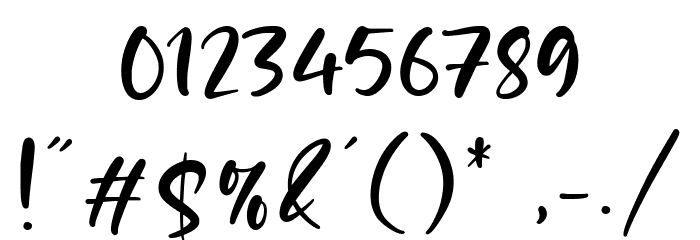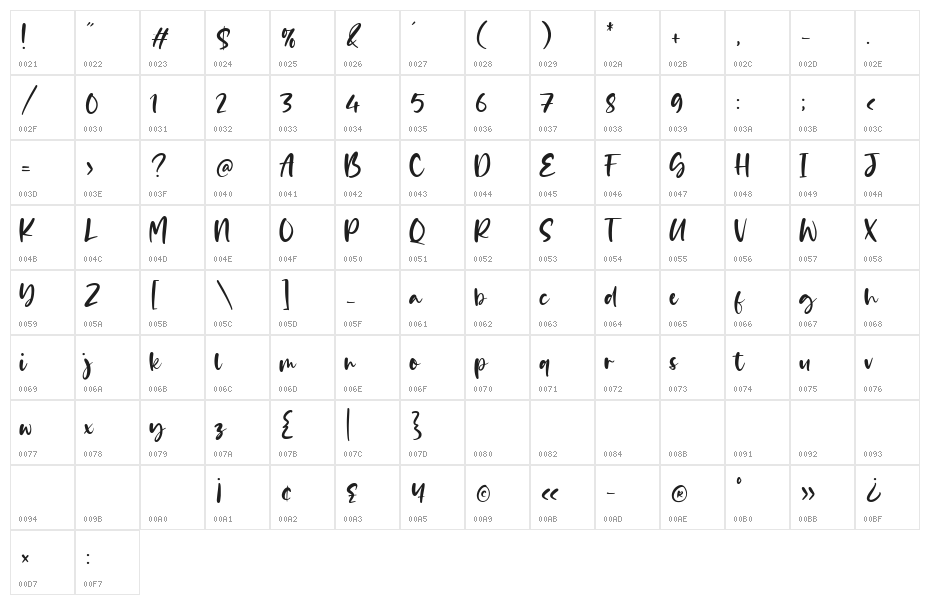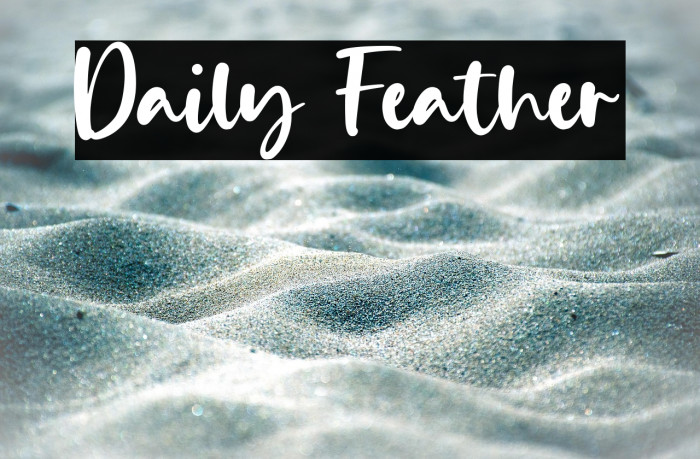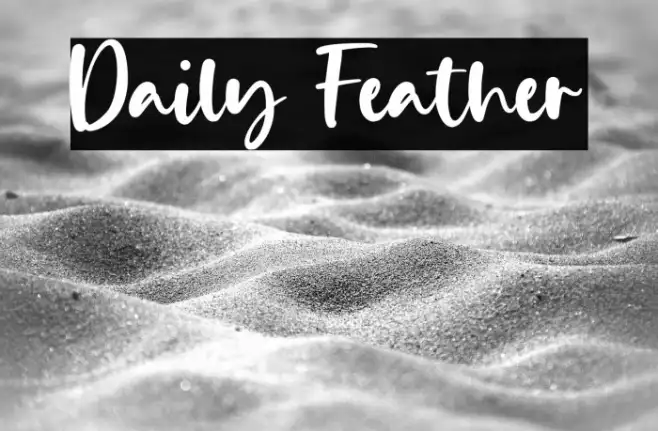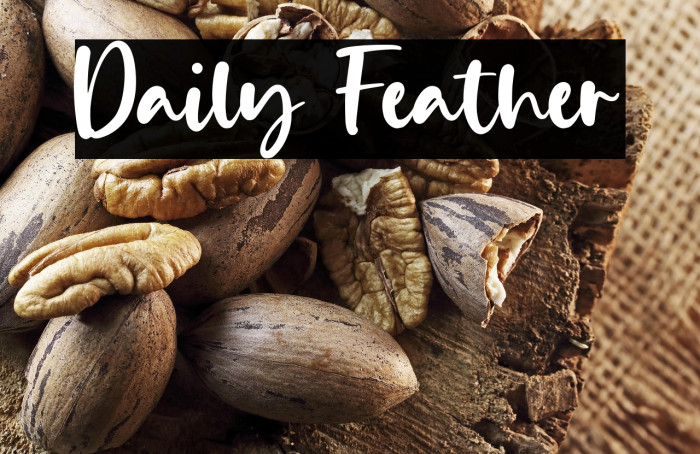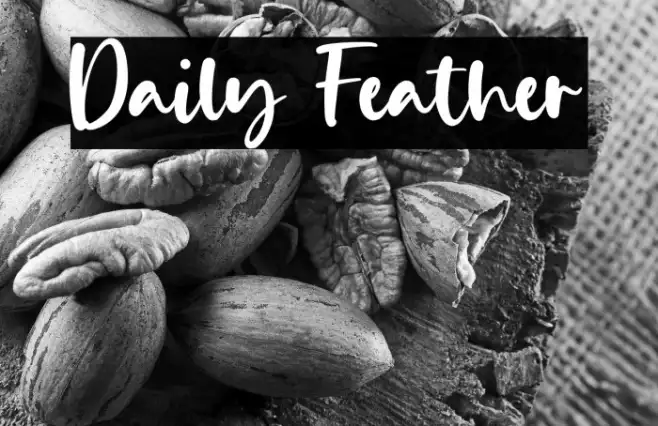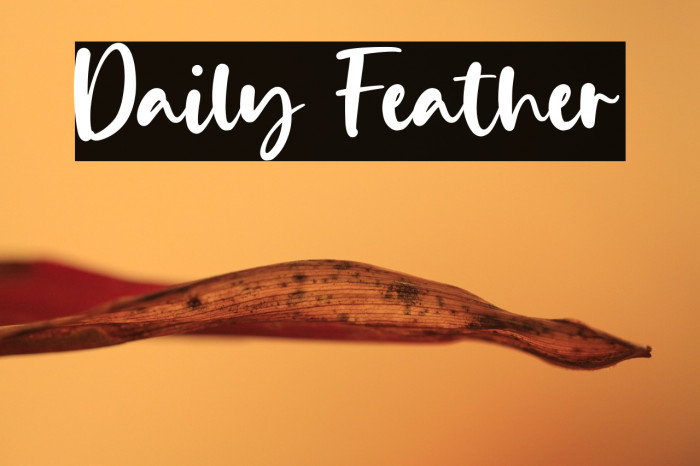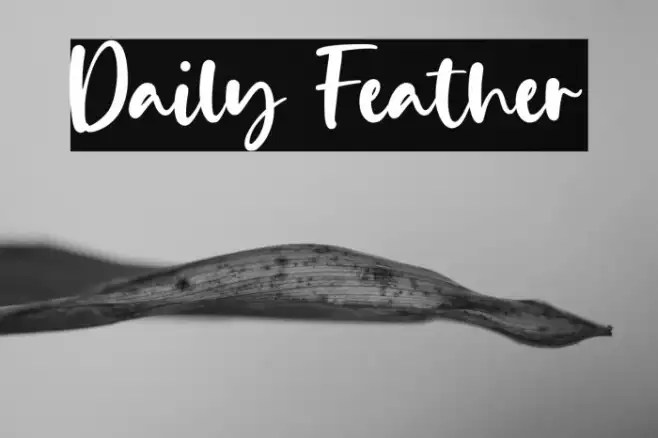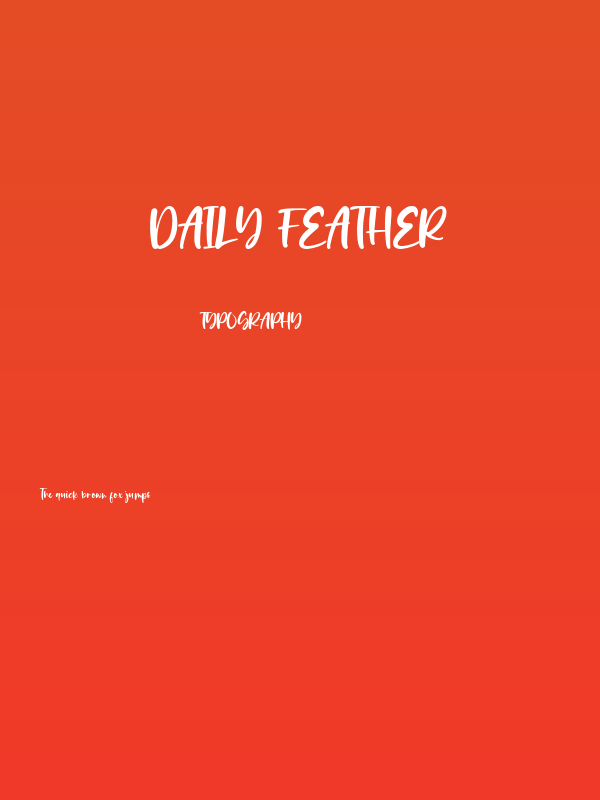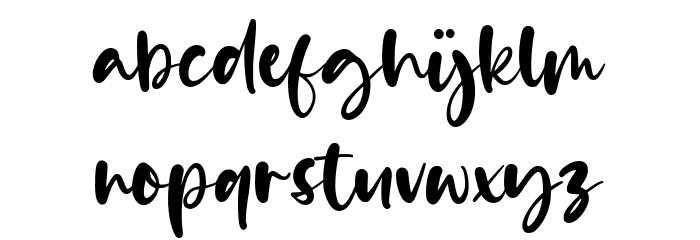
Daily Feather Font
This font features a lively and expressive handwritten style, characterized by its flowing, cursive letterforms. The strokes are bold and dynamic, with a natural, organic feel that mimics the fluidity of handwriting. The uppercase letters are slightly taller and more prominent, while the lowercase letters maintain a consistent rhythm and balance. Numbers and special characters are crafted with the same attention to detail, ensuring a cohesive look throughout. The overall appearance is both playful and elegant, making it suitable for a variety of creative projects.
| Proposed Projects | Ideal for greeting cards, invitations, branding, and social media graphics. |